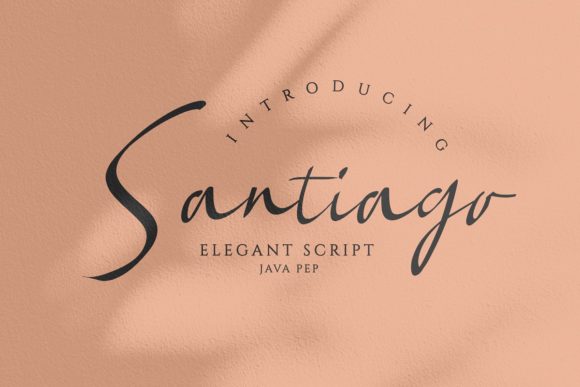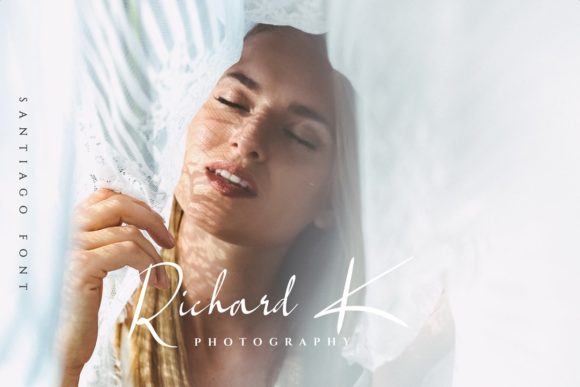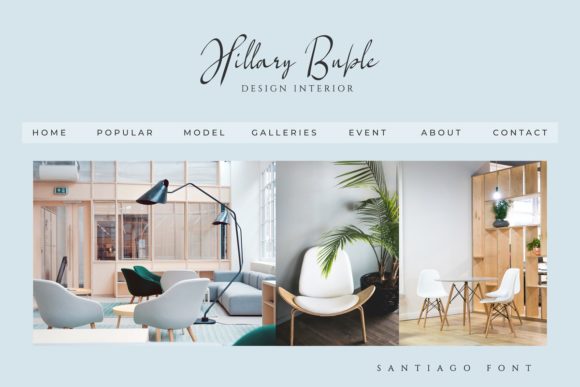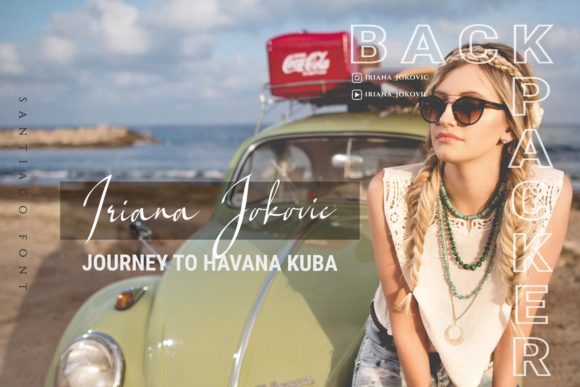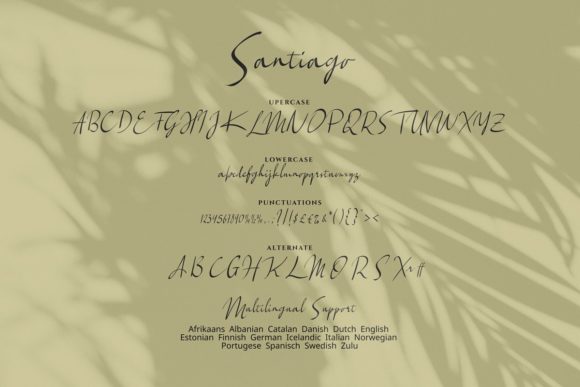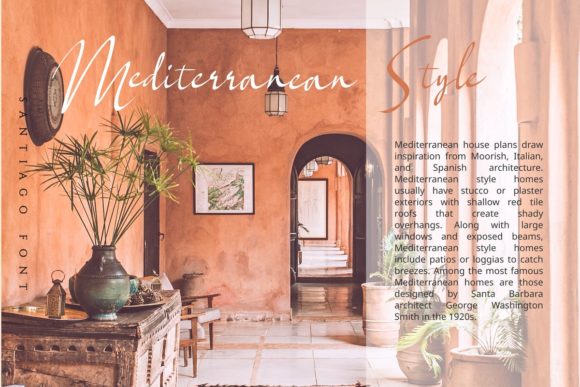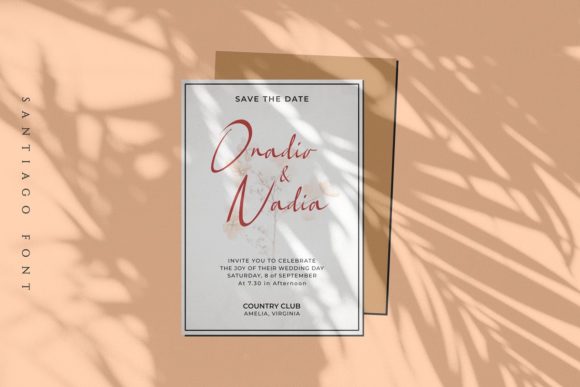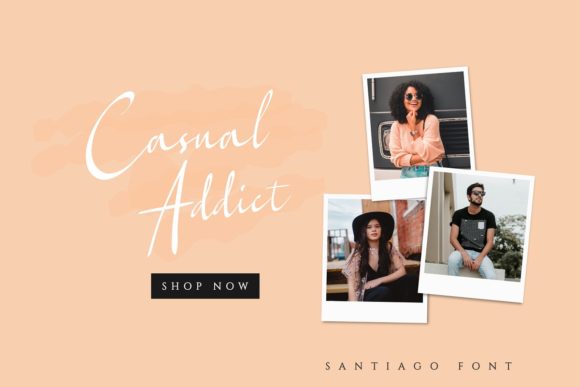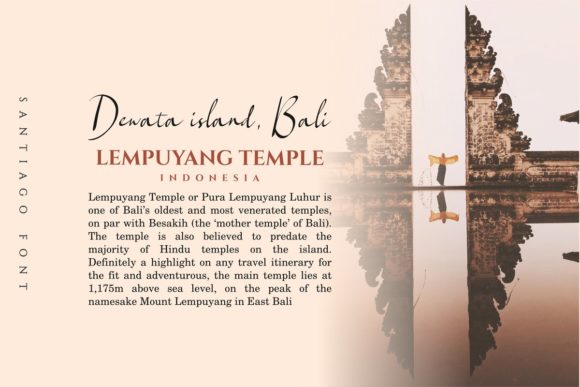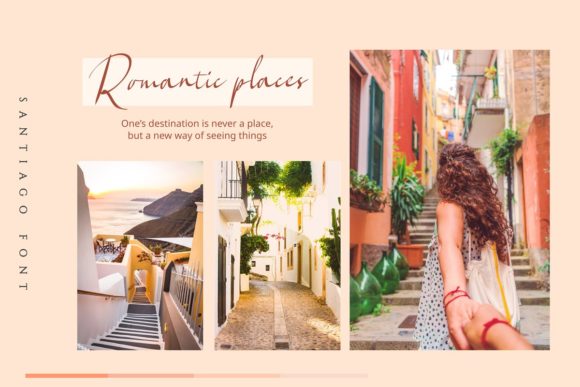
HomeScript FontsSantiago Font Script Fonts Santiago Font FacebookXPinterestWhatsApp Santiago Font Poster 2 Santiago Font Poster 3 Santiago Font Poster 4 Santiago Font Poster 5 Santiago Font Poster 6 Santiago Font Poster 7 Santiago Font Poster 8 Santiago Font Poster 9 Santiago Font Poster 10 Santiago Font Poster 11 Santiago Font Poster 12 Santiago Font Poster 13 About Santiago Font Santiago is a light and elegant font with a contemporary feel. Get inspired by its distinctly modern aesthetic. DOWNLOAD ON CREATIVE FABRICAThis font is sold and delivered by Creative Fabrica. Font Canyon may earn a commission if you buy through this link. People also explored MF Dings Font Pinocchio Font Marker Attack Font Savigny First Snow Font Welcome Spring Font Anabella Font Lemon Juice Font Erfink Font 282 0 TagsSantiago Font Previous articleHanastly FontNext articleHurrion Font LEAVE A REPLY Cancel reply Comment: Please enter your comment! Name:* Please enter your name here Email:* You have entered an incorrect email address! Please enter your email address here Website: Save my name, email, and website in this browser for the next time I comment. Personal Use Free Single Sleeve Personal Use Free Read more about this font Bosk Personal Use Free Read more about this font Relic Island 2 Personal Use Free Read more about this font BD AsciiMax Personal Use Free Read more about this font BLOG Best Fonts for YouTube Videos: Make Your Thumbnails Stand Out Best Fonts for YouTube Videos: Make Your Thumbnails Stand Out Choosing the right font can make a massive difference in how your YouTube videos perform.... Top 10 Handwritten Fonts That Elevate Your Designs Free vs Paid Fonts: Why Investing in Premium Fonts Is Worth It Exploring Font Trends